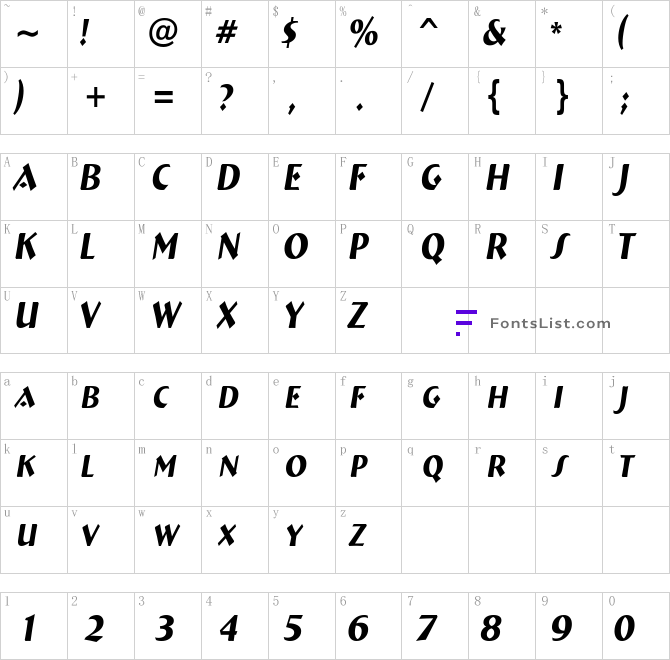
- Font Name:a_BremenCapsNr
- Full Name:a_BremenCapsNr Italic
a_BremenCapsNr-Italic.ttf is a very beautiful artistic font, a_BremenCapsNr-Italic.ttf is widely used in the design and printing of various books and pictures,a_BremenCapsNr-Italic.ttf has a strong visual impact,a_BremenCapsNr-Italic.ttf is a commonly used font in newspapers, magazines and books, and is used in posters, e-commerce Poster design, store design, logo design, font design and other fields.a_BremenCapsNr-Italic.